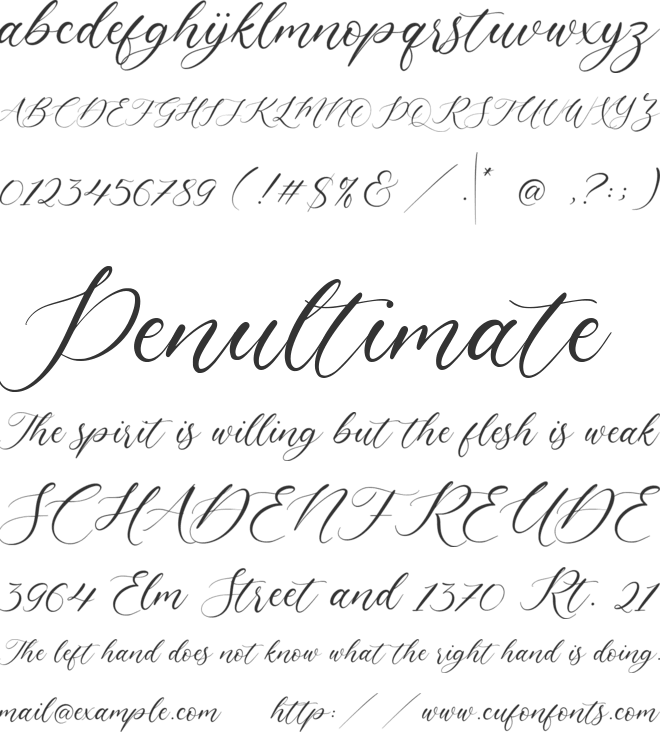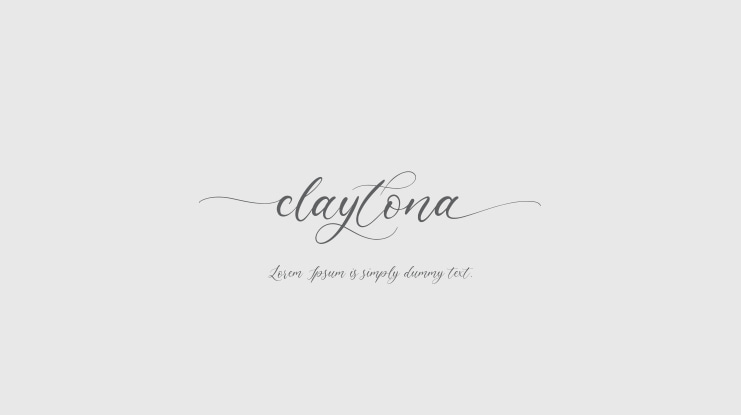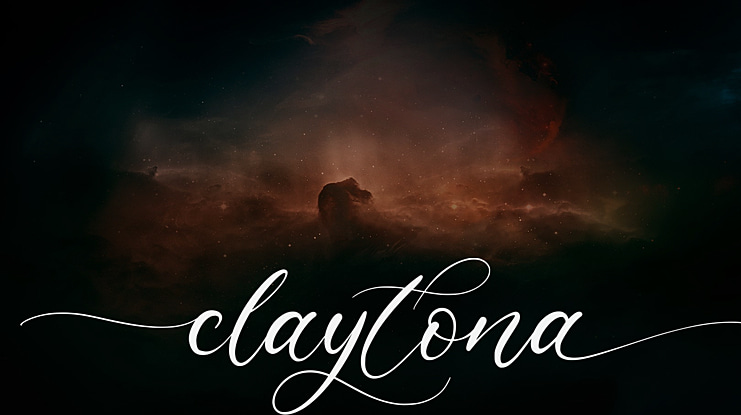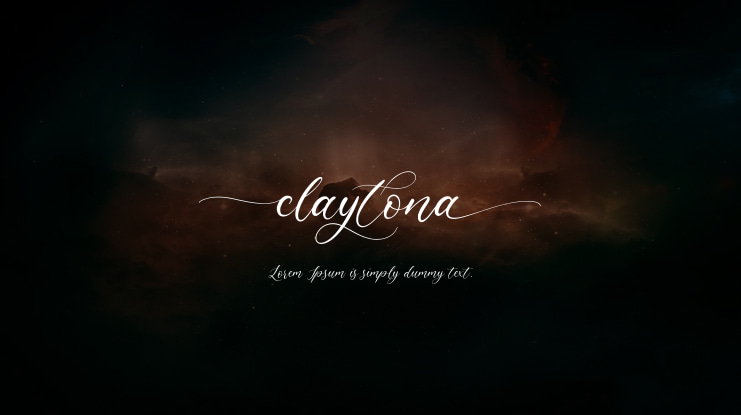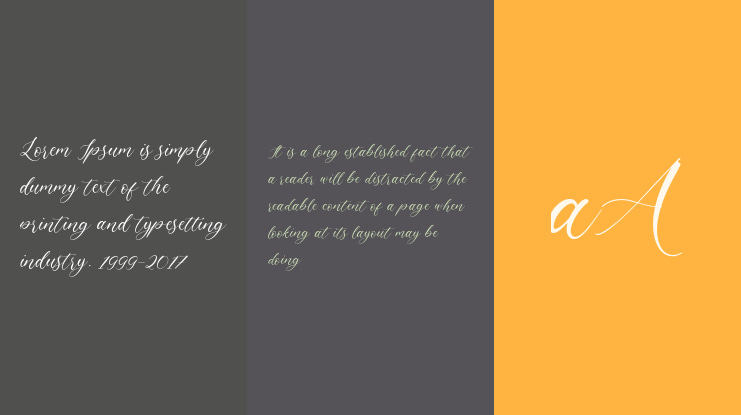
claytona Font
Introducing by Balpirick Studio.
Proudly Present, claytona Font.
claytona is a Modern Calligraphy Script Font.
claytona is perfect for product packaging, branding project, megazine, social media, wedding, or just used to express words above the background.
Uppercase & Lowercase font Stylistic Alternates Ligatures Symbols & Punctuation OpenType Features.